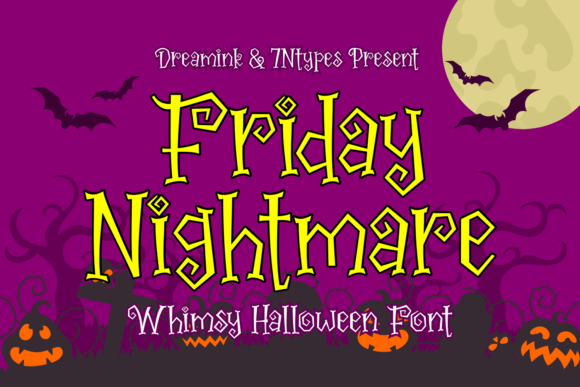
Step into the world of Friday Nightmare, the display font that will make your Halloween-themed designs scream with spooky delight! This quirky font, crafted by Dreamink (7ntypes), is more than just a font; it's a spellbinding experience that will transport your designs to a realm of haunted wonder.
Unleash the frightfully captivating spirit of Friday Nightmare in your posters and flyers, adding a touch of eerie charm to Halloween parties and events. Picture the spine-tingling effect it will create on invitations, sending chills down the spines of your guests as they anticipate the haunting festivities to come.
Embrace the spooky season with Friday Nightmare, and let your designs embody the magic of Halloween. It's not just a font; it's a haunting masterpiece that will make your creations unforgettable.
With Friday Nightmare, you'll conjure up an atmosphere of mystery and intrigue, captivating your audience with its bewitching appearance. It's the perfect font for crafting spellbinding logos, adding a touch of otherworldly charm to branding and marketing materials.
Whether you're a seasoned designer or a creative enthusiast, Friday Nightmare is your gateway to unlocking the secrets of Halloween design. Its eerie elegance will leave a lasting impression, ensuring that your creations stand out from the ordinary and embrace the extraordinary.